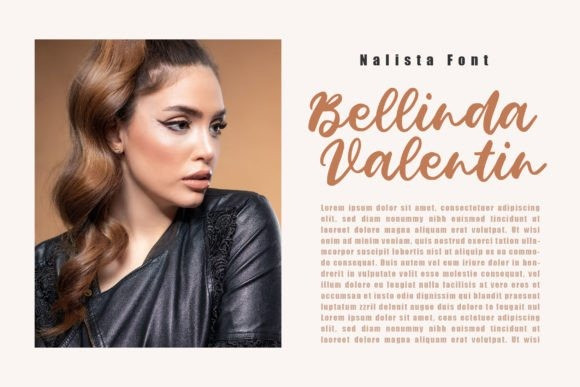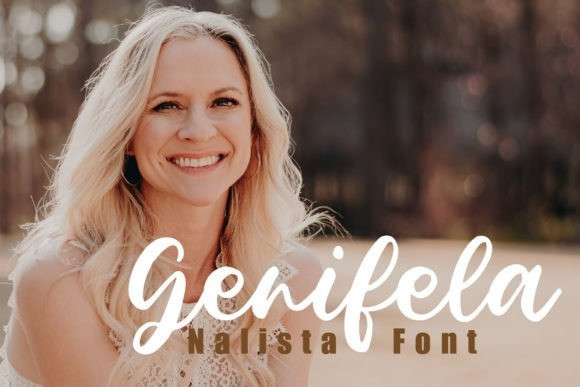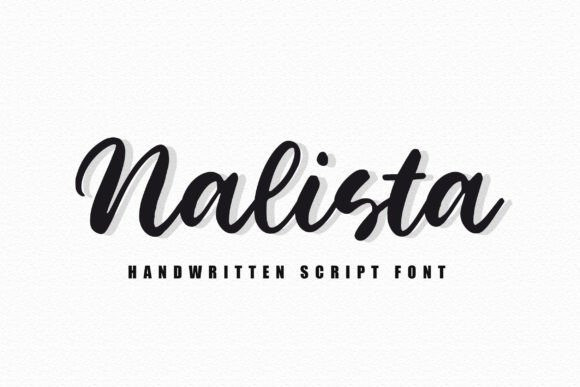
Nalista Font
Nalista Script Font is an exclusive and beautiful font that exudes elegance and charm. With its delicate curves, flowing lines, and intricate details, this font is perfect for creating a romantic and upscale feel for your designs. From wedding invitations to branding materials, elevate your projects with the exclusive and enchanting beauty of Nalista.